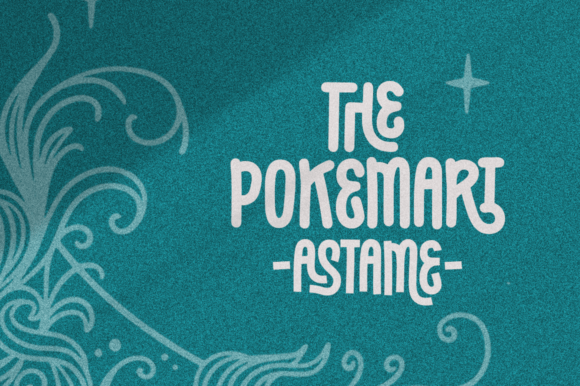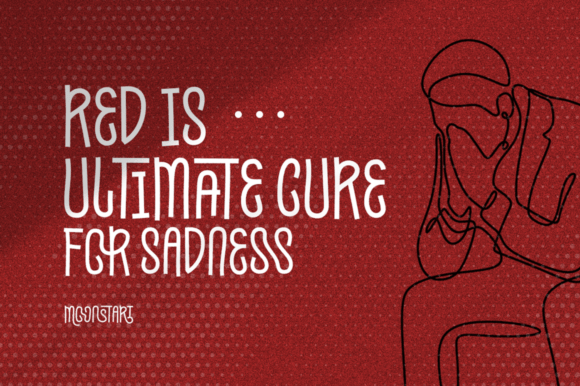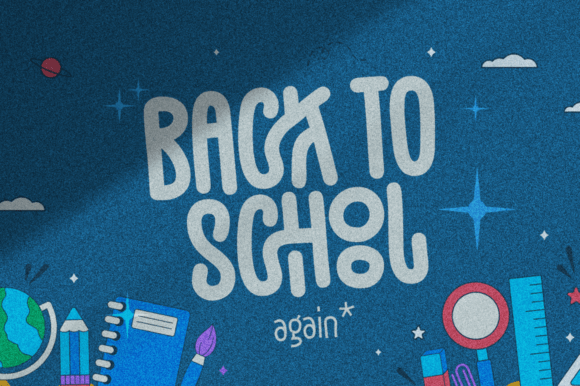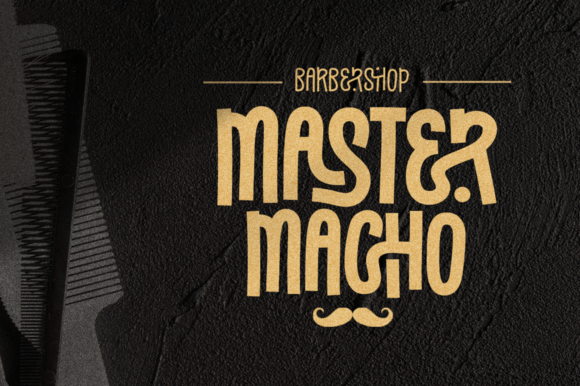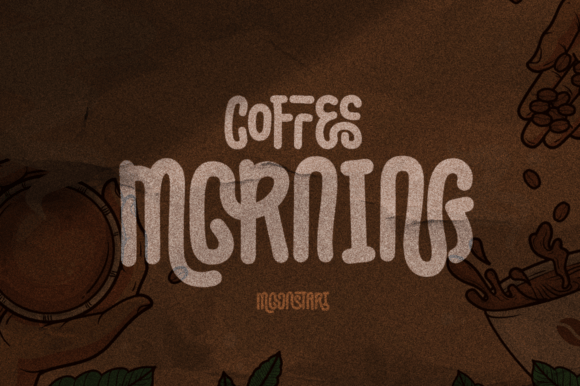
Introduction to Moonstart Font
Introducing Moonstart, an exquisite, condensed decorative typeface that effortlessly imparts an artistic grace and personal touch to every project it graces.
| 👤 Author | Grontype |
Moonstart is characterized by its streamlined silhouettes and fluid strokes, radiating a timeless allure that seamlessly complements contemporary branding, invitations, logos, and more Its distinctive nature is augmented by the expert incorporation of ligatures, enabling flawless letter transitions and a fluid script-like styling.
Key Features of Moonstart Font
Why Choose Moonstart Font?